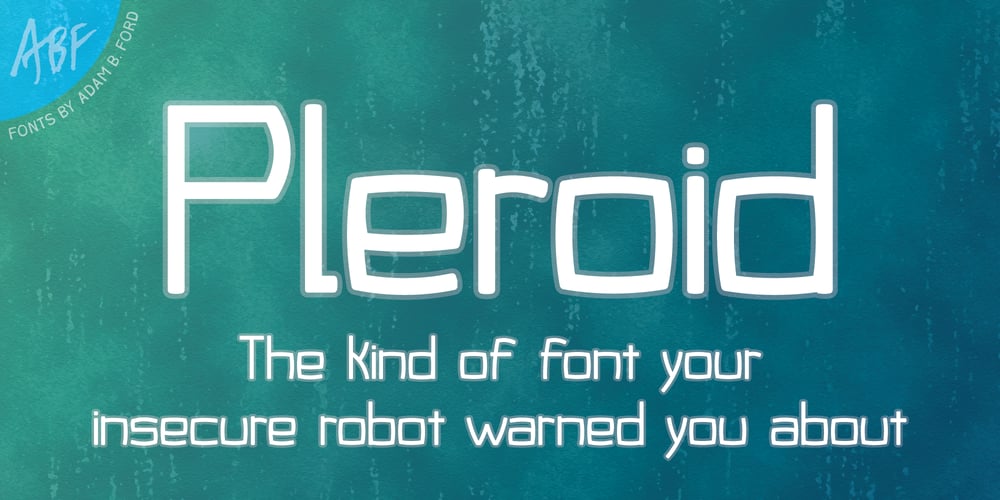
Pleroid Font Family was designed by Adam B. Ford and published by Adam B. Ford. Pleroid contains 1 styles and family package options. Designed to be a square font that isn’t square, Pleroid takes its cues from the shape of a square when “bulged” outward like a balloon. The caps are all rounded, the verticals are straight, and it has the feel of an old cathode-ray tube monitor—just the kind of thing for a retro-futuristic view of science fiction. Your robot approves.